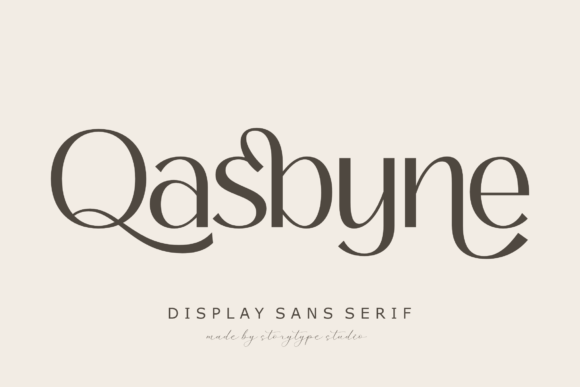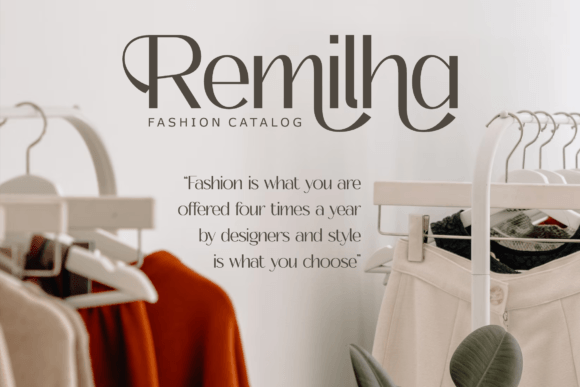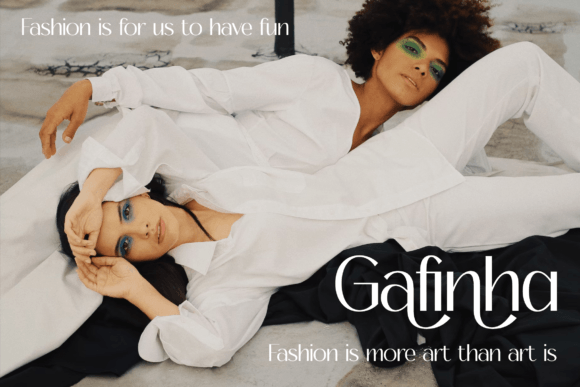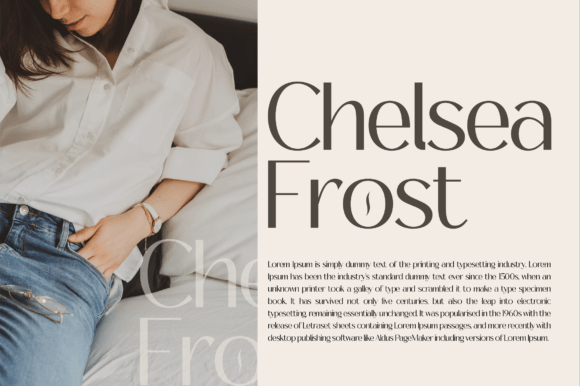
Qasbyne Font: Elegant Sans Serif for Modern Logo Design & Branding
About the Qasbyne Font
Crafted with precision, the Qasbyne Font is ready to bring your ideas to life. Qasbyne is a modern and classic sans serif typeface with a unique style and fancy look.
This typeface is perfect for an elegant & luxury logo, book or movie title design, fashion brand, magazine, clothes, lettering, quotes, and so much more. This font is PUA encoded, which means you can access all of the glyphs and swashes with ease!
Qasbyne’s elegant and luxurious aesthetic makes it ideal for headlines, branding projects (especially logos and packaging for high-end products), and short-form text like posters and magazine covers. Its refined detailing, however, makes it less suitable for body copy or UI elements where readability over extended text is crucial.
For optimal impact, pair Qasbyne with a contrasting yet complementary typeface. A clean sans-serif like Lato or a classic serif such as Garamond would provide a strong visual balance, enhancing its sophisticated personality. For a more playful approach, a rounded sans-serif could soften its formality.
Qasbyne projects a sophisticated and confident personality, best suited for brands aiming for a refined and upscale image. Its unique swashes add a touch of personality without sacrificing legibility in short applications.
Qasbyne Font Usage Examples
Qasbyne Font Example